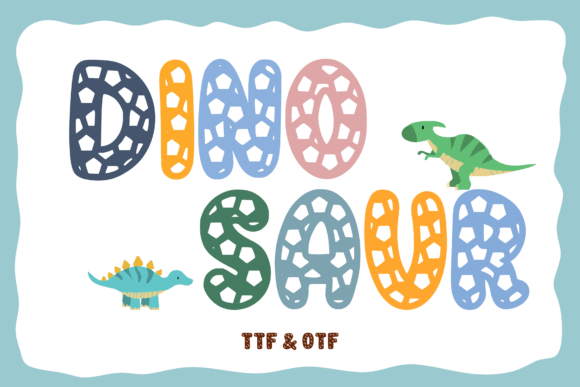
Unleash Your Creativity with Dinosaur Font: A Charming and Mischievous Decorative Font
Are you a designer, crafter, or DIY enthusiast looking for a unique and playful font to add a touch of personality to your creations? Look no further than Dinosaur Font, a charming and mischievous decorative font that’s sure to delight children and adults alike. In this article, we’ll introduce you to the wonderful world of Dinosaur Font and explore its many uses in design, crafting, and beyond.
What is Dinosaur Font?
Dinosaur Font is a decorative font that’s designed to bring a smile to your face. Each character is carefully crafted to have a scaly texture, giving it a distinctive touch that’s perfect for designs aimed at children. Whether you’re creating unique t-shirt prints, adorable baby clothes, nursery decor, digital designs, fun cards, or more, Dinosaur Font is the perfect choice.
The Magic of Dinosaur Font
So, what makes Dinosaur Font so special? For starters, its playful and whimsical design is sure to capture the imagination of children and adults alike. The font’s scaly texture adds a tactile element to your designs, making them feel more engaging and interactive. Plus, the font’s charming and mischievous personality shines through in every character, making it perfect for designs that need a dash of fun and personality.
Uses for Dinosaur Font
Dinosaur Font is an incredibly versatile font that can be used in a wide range of design applications. Here are just a few ideas to get you started:
- T-shirt prints: Create unique and eye-catching t-shirt designs that kids will love. Perfect for birthday parties, school events, or just for fun.
- Baby clothes: Add a touch of personality to adorable baby clothes, onesies, and bibs. A great way to make baby gifts extra special.
- Nursery decor: Create charming nursery decor, such as wall art, posters, and signs, that will delight kids and parents alike.
- Digital designs: Use Dinosaur Font to create fun and engaging digital designs, such as social media graphics, blog posts, and email newsletters.
- Cards and invitations: Add a playful touch to birthday cards, invitations, and other paper crafts.
Why Choose Dinosaur Font?
So, why choose Dinosaur Font over other decorative fonts? Here are just a few reasons:
- Unique design: Dinosaur Font has a distinctive scaly texture that sets it apart from other fonts.
- Playful personality: The font’s charming and mischievous personality shines through in every character.
- Versatility: Dinosaur Font can be used in a wide range of design applications, from t-shirt prints to digital designs.
Dinosaur Font is a charming and mischievous decorative font that’s perfect for designers, crafters, and DIY enthusiasts. With its unique scaly texture, playful personality, and versatility, Dinosaur Font is sure to bring a touch of magic to your creations. Whether you’re creating t-shirt prints, baby clothes, nursery decor, or digital designs, Dinosaur Font is the perfect choice. So why wait? Download Dinosaur Font today and start unleashing your creativity!